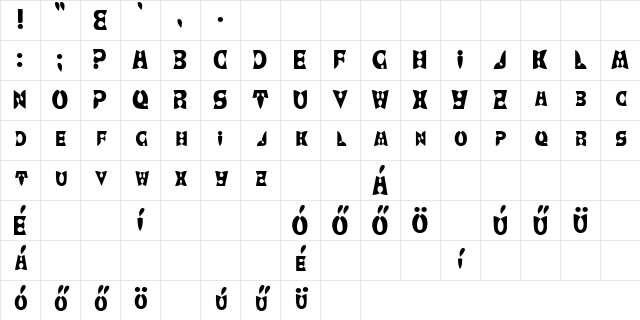
H_YoBaby Regular Free Font
H_YoBaby Regular
Design Context for H_YoBaby
H_YoBaby is a composed and adaptable typeface that performs quietly and consistently across a wide range of design contexts.